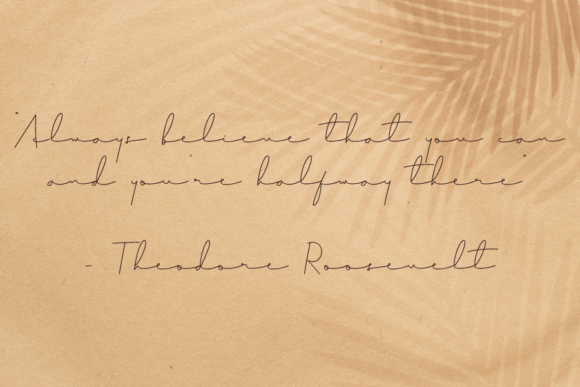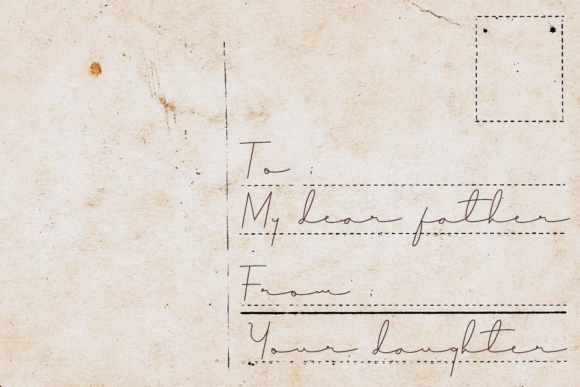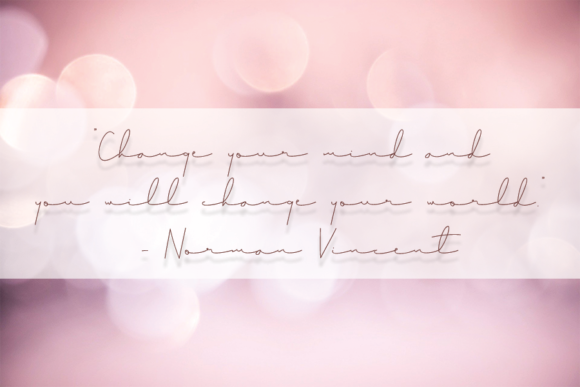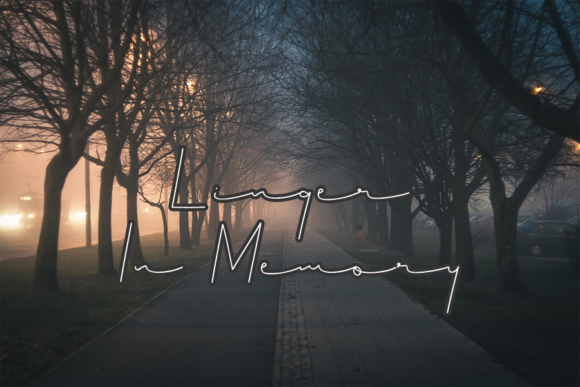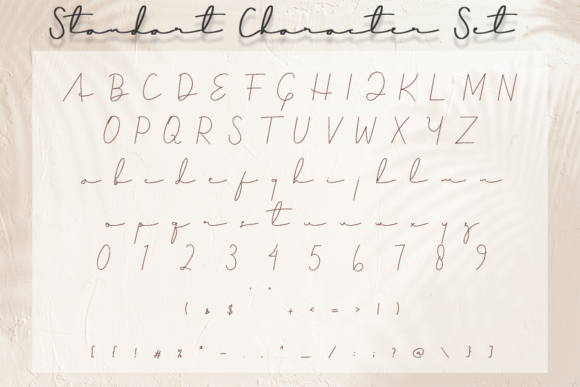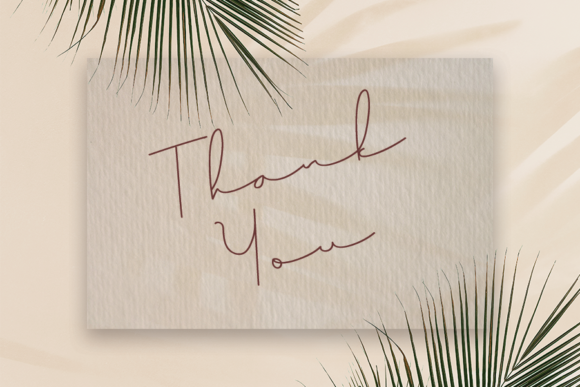
Simple Signature Font
About Simple Signature Font
Simple Signature is a fashionable, cursive, and thin script font that exudes style and sophistication. With its neat craftsmanship and highly detailed letterforms, this font is a valuable asset to your font library, capable of enhancing any creation, regardless of the topic.
The fashionable and thin strokes of Simple Signature add an elegant and graceful touch to your typography. Its cursive style brings a sense of flow and charm, making it suitable for a wide range of design projects. Whether you’re working on branding materials, wedding invitations, packaging, posters, or any other creative endeavor, this font will elevate your designs and give them a refined and polished look.
The careful craftsmanship and attention to detail in Simple Signature ensure a visually pleasing and harmonious typography. Every curve and stroke is meticulously designed, resulting in a well-balanced and visually appealing font. This level of precision makes Simple Signature a reliable choice for enhancing the visual appeal of your creations.
No matter the topic or purpose of your design, Simple Signature adds a touch of sophistication and elegance. Its fashionable and detailed nature brings a sense of style to your projects, making them visually captivating and memorable.